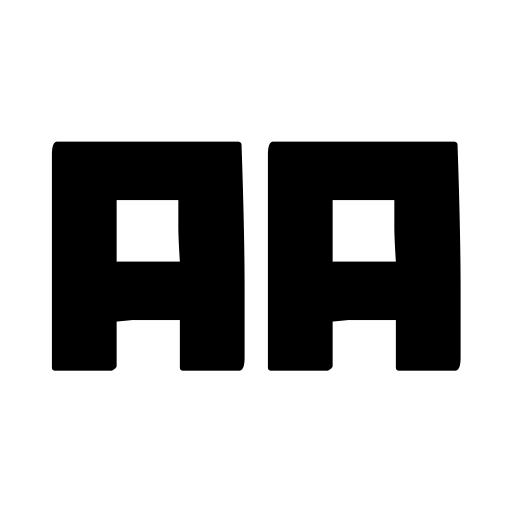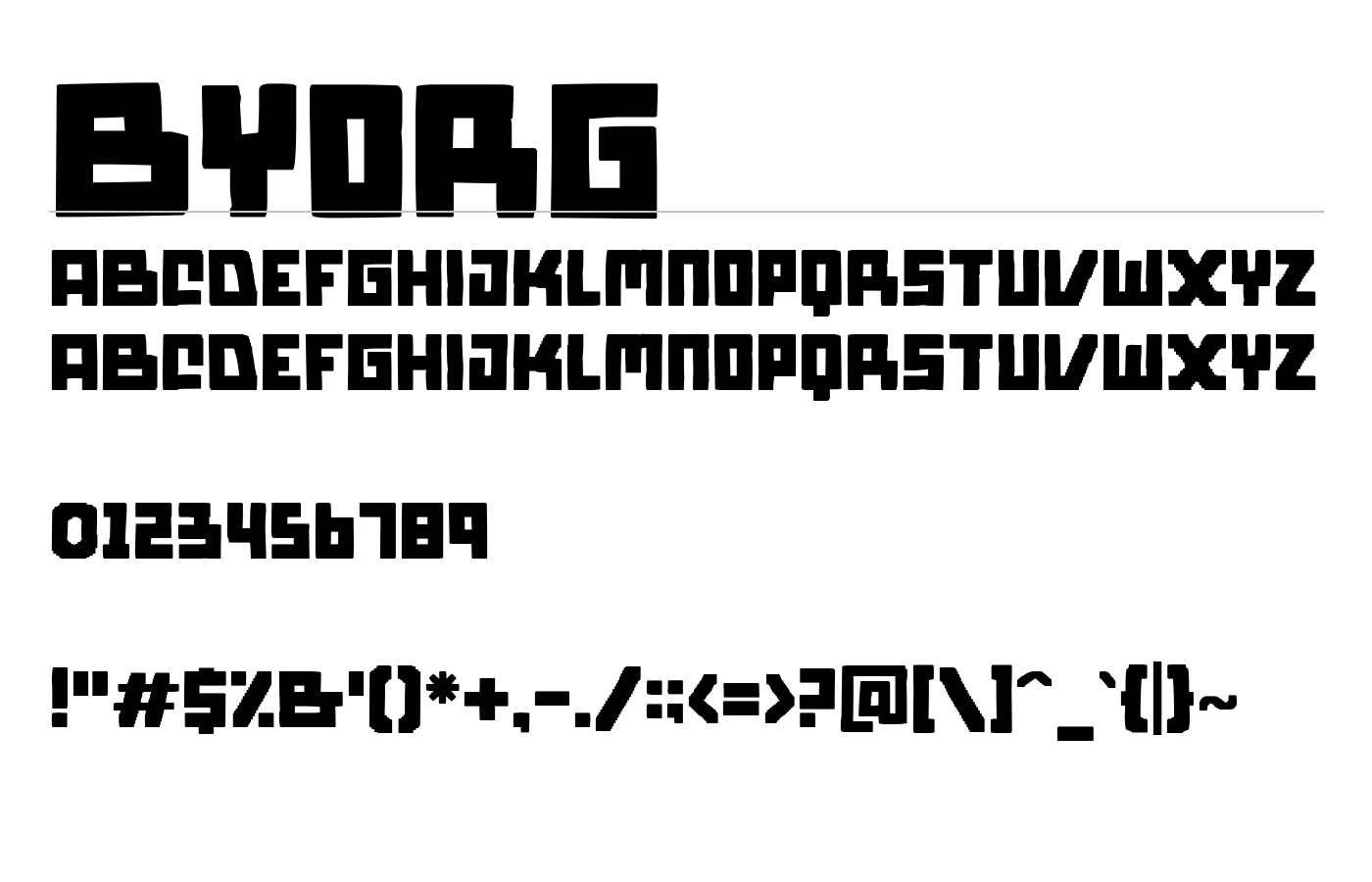
Byorg is a bold, blocky sans serif font featuring thick, geometric letterforms with a playful, slightly uneven structure that adds a handcrafted feel. Its condensed width and strong presence make it ideal for eye-catching headlines, logos, or poster designs that need a modern yet quirky character. This font works well for creative branding and display settings where a fun, confident style is desired.
Byorg Font
About Byorg Font
| Font family | Byorg Font |